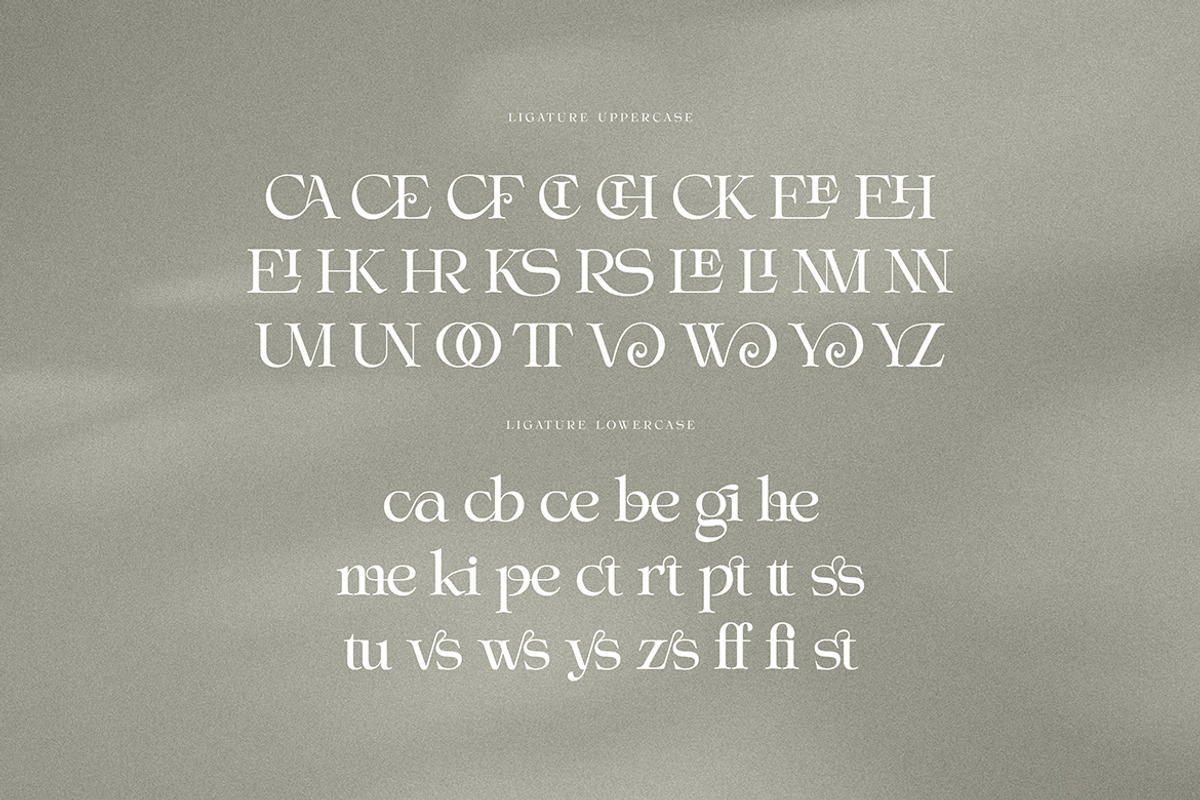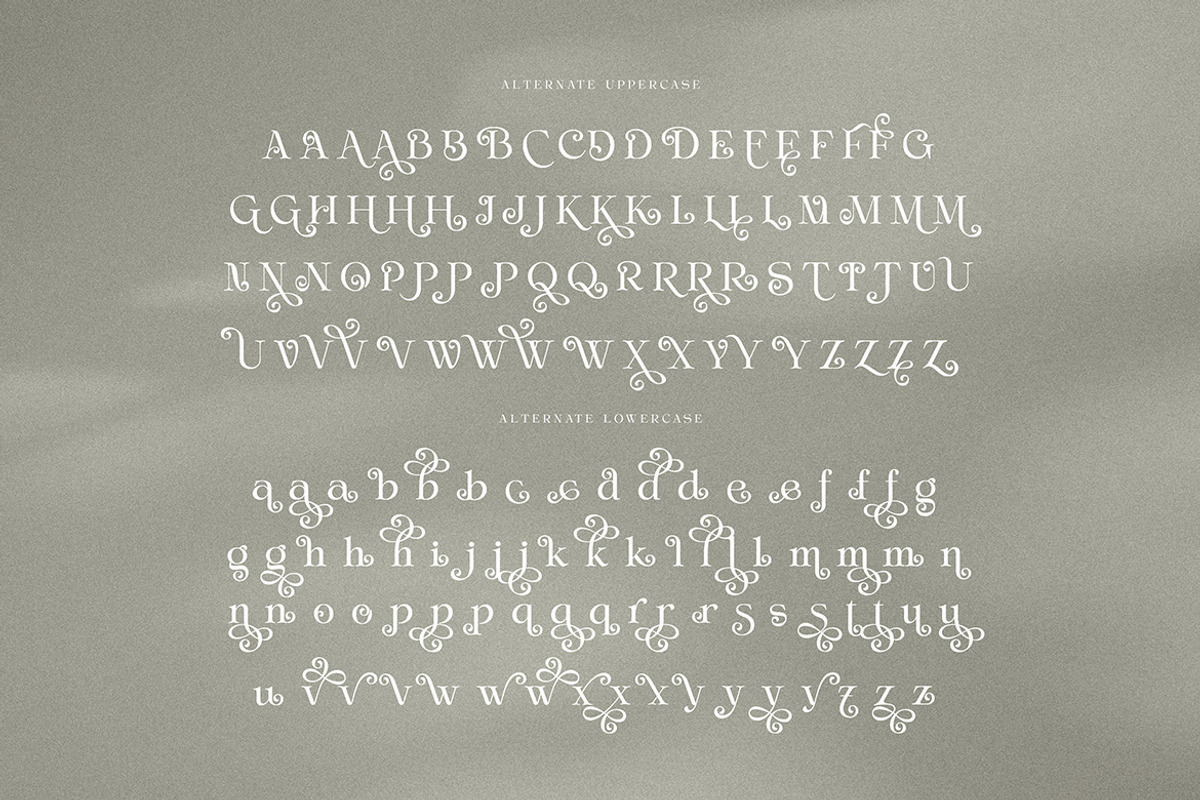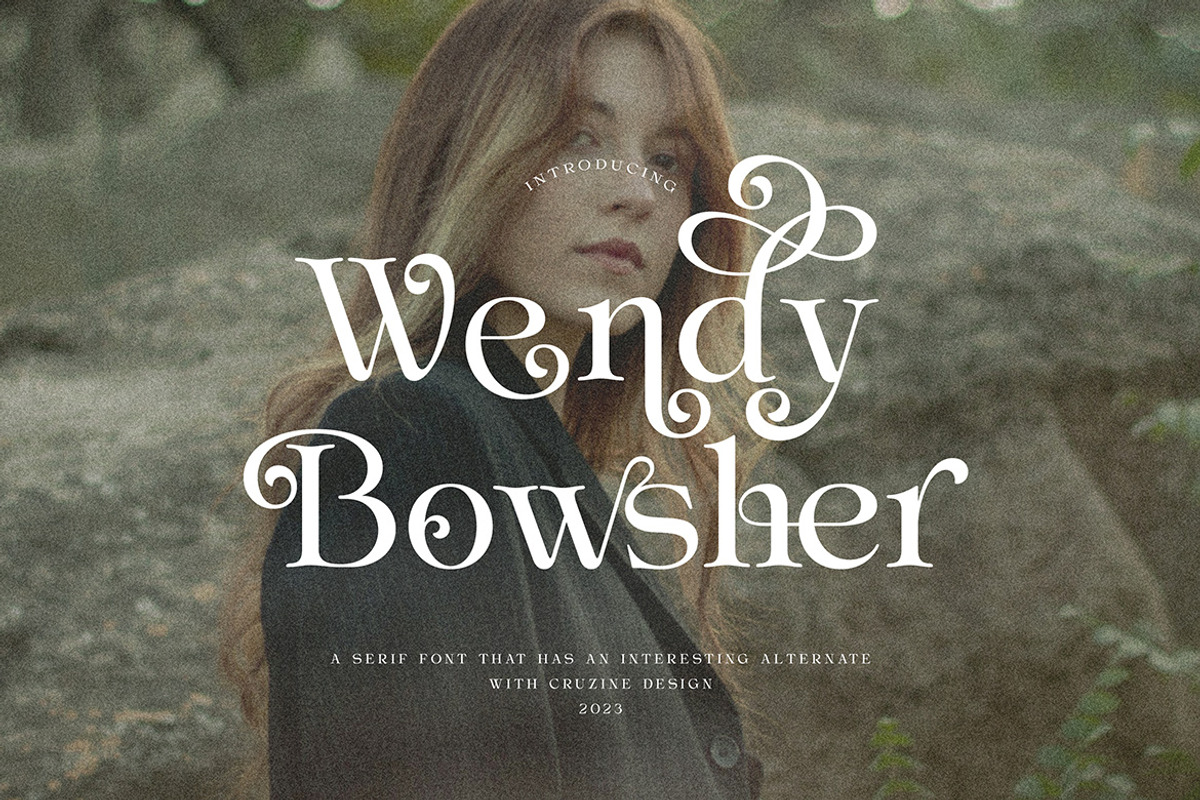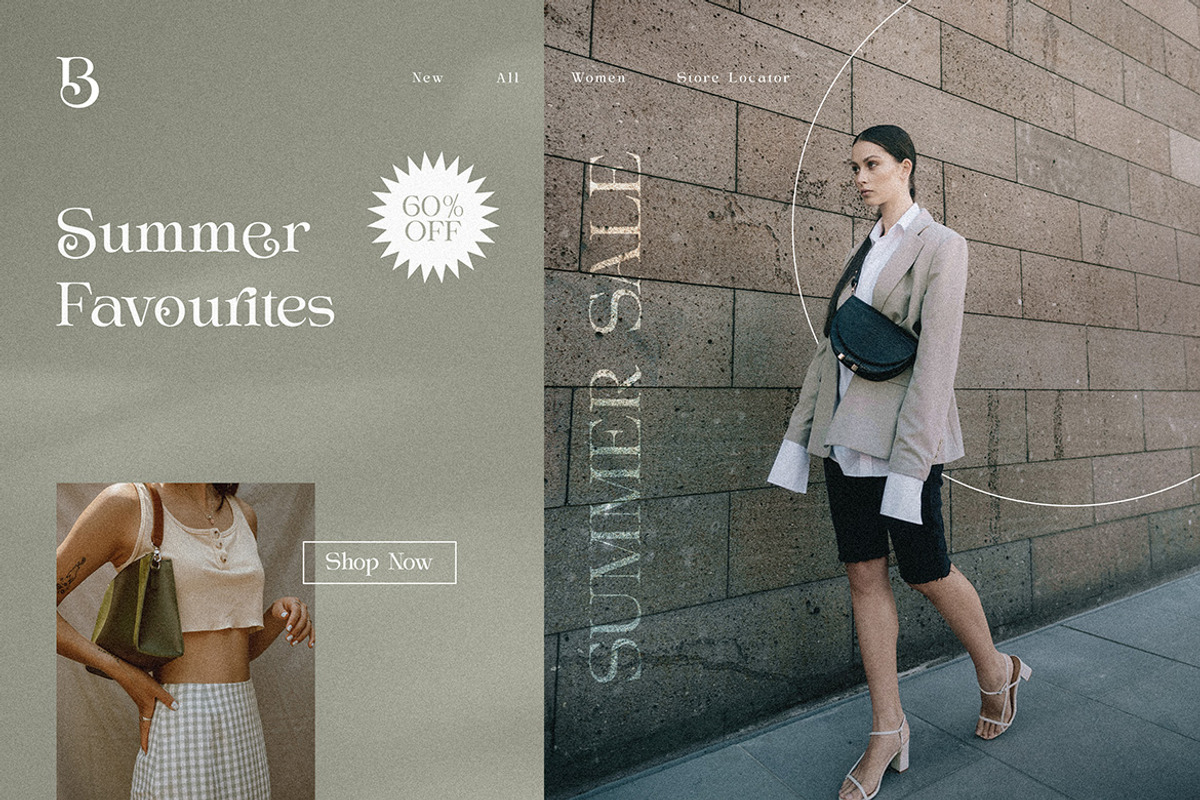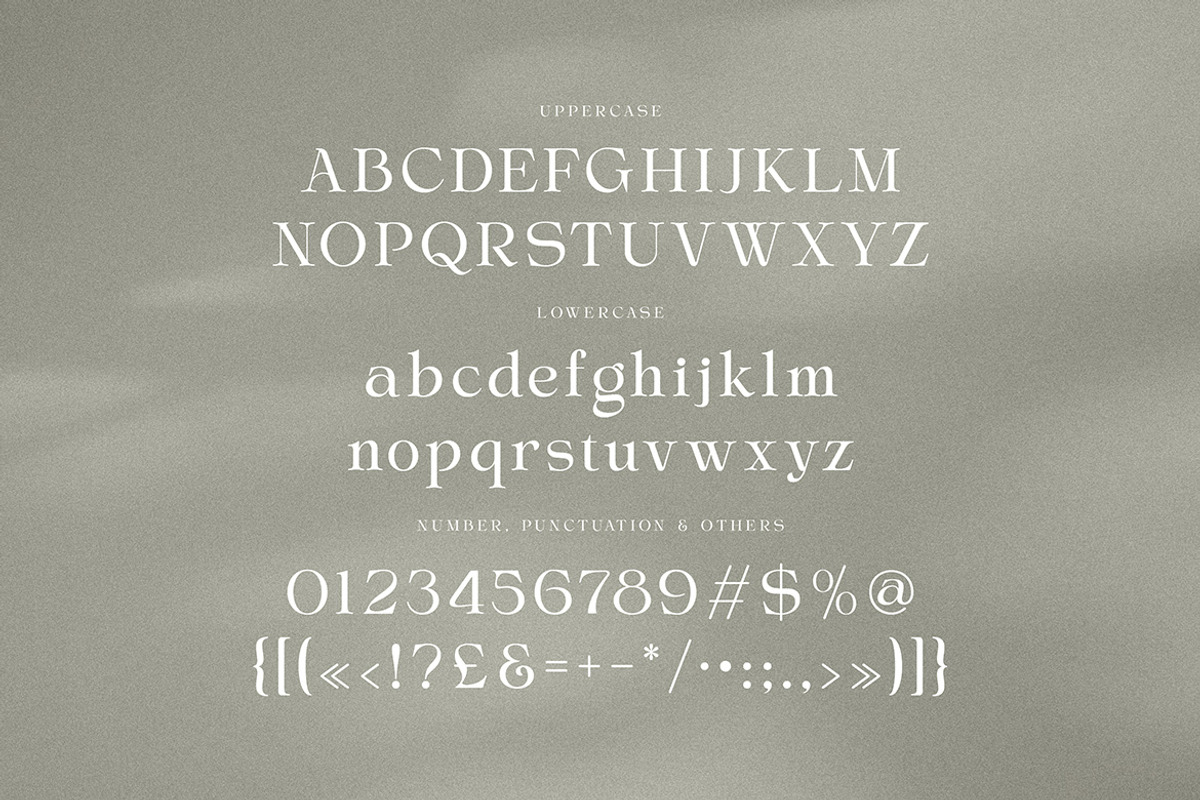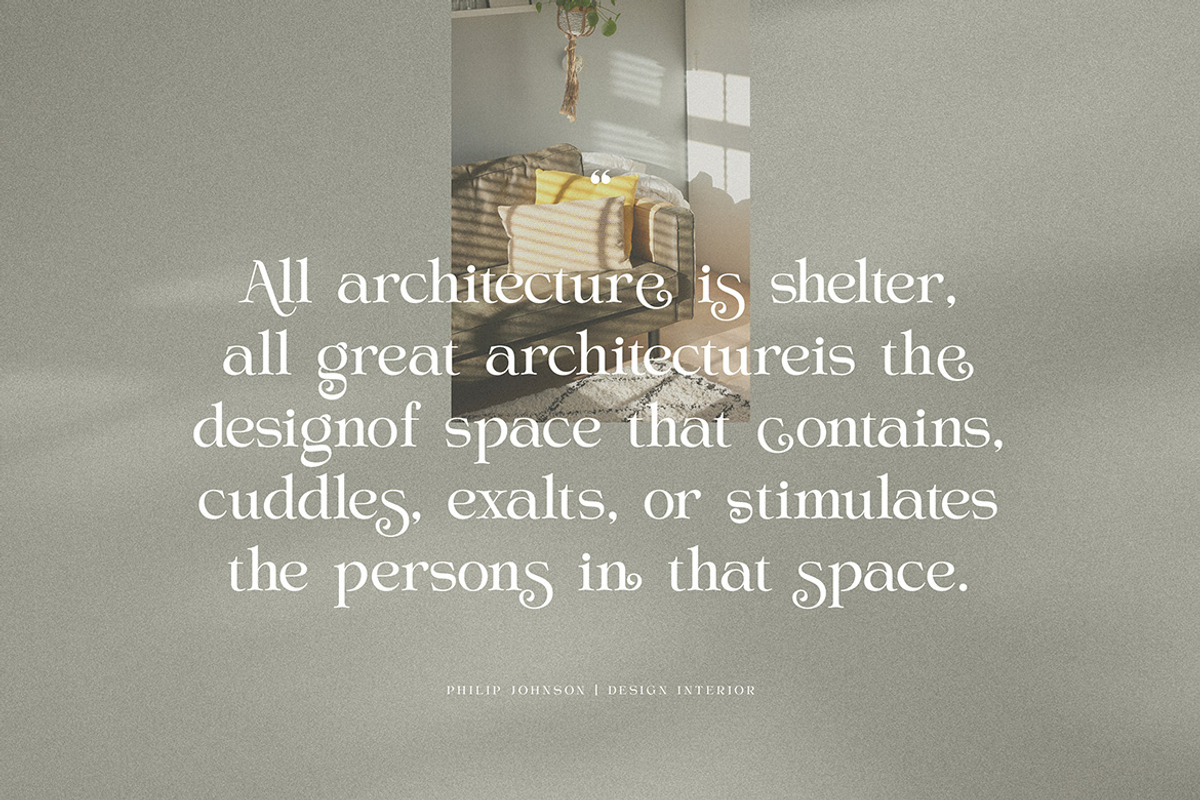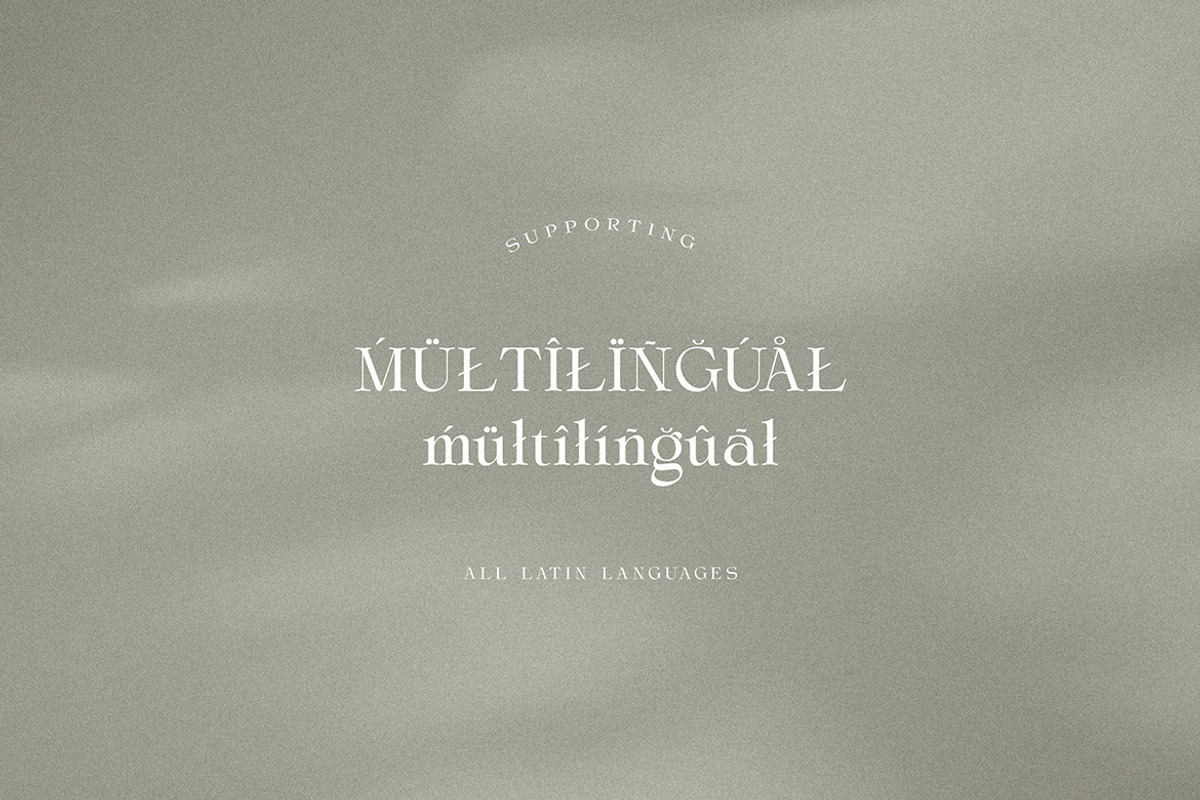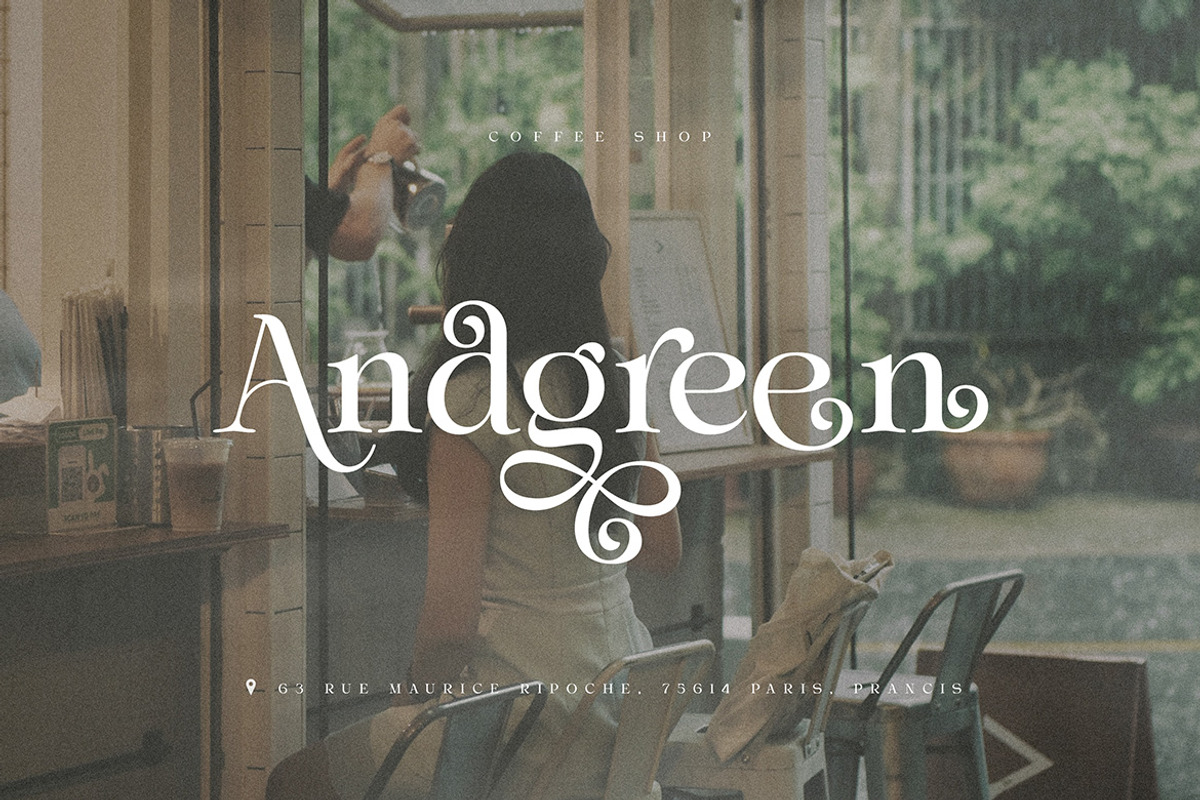
Wendy Bowsher Stylish Serif
Trendy, elegant, luxury, rounded, retro & bold style serif font for your new fancy projects. Stylish, creative and classic style on Wendy Bowsher font will be great for any modern or classy branding project. Lot of alternates and ligatures will help you to create unique and original logo design or website header! Enjoy :)
- Alternate characters
- Lot of ligatures
- Great for modern branding projects!